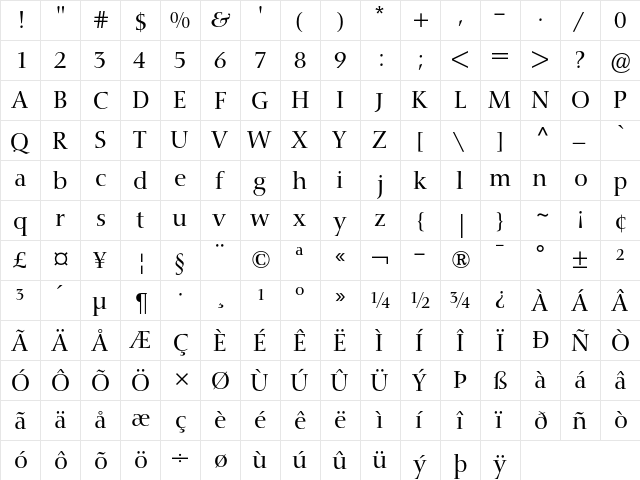
Nofret Regular
Design Context for Nofret Typeface
Nofret offers clean, dependable letterforms without strong stylistic allegiance, making it a practical choice for designers who need flexibility.
Pro Tip: Pair Nofret with a font of contrasting weight or personality to build a more expressive typographic hierarchy.